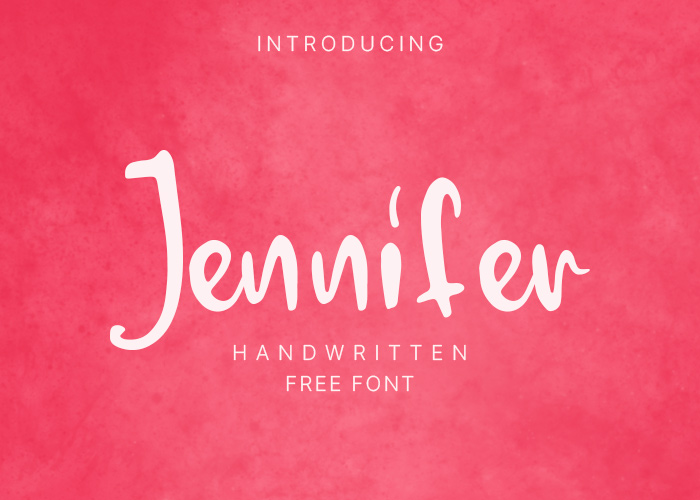
Give your designs a bold upgrade with Jennifer — a versatile, eye-catching font built for multipurpose use. Whether you’re crafting social media graphics, thumbnails, print layouts, or branding materials, Jennifer adds personality and impact to your work.
Highlights
• Stylish, all-round display font ideal for posters, thumbnails, banners, and print.
• Works well with many themes: retro, summer, funky, grunge, urban, and more.
• Designed to make headlines and short copy stand out.